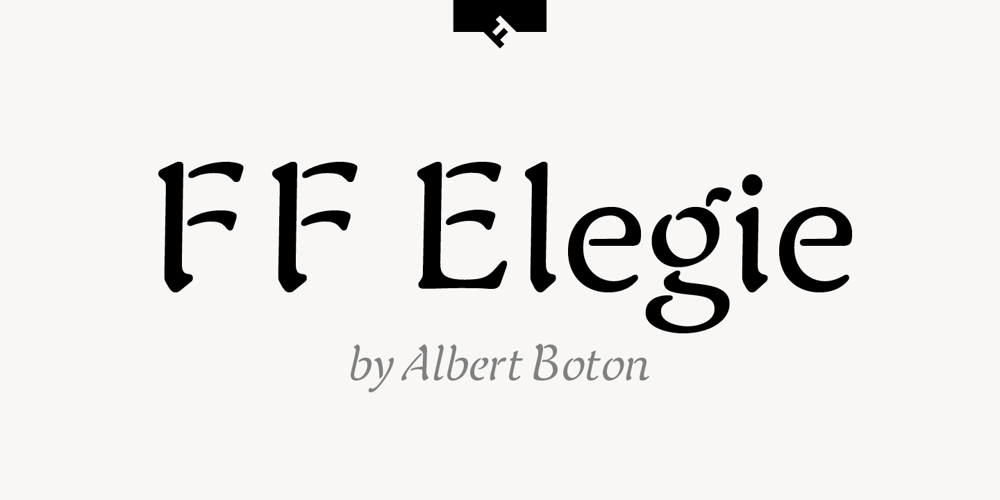
FF Elegie Font Family was designed by Albert Boton and published by FontFont. FF Elegie contains 2 styles and family package options. French type designer Albert Boton created this script FontFont in 2002. The family contains 2 weights: Regular and Italic and is ideally suited for advertising and packaging, festive occasions, film and tv as well as poster and billboards. FF Elegie provides advanced typographical support with features such as swashes, ligatures, alternate characters, and case-sensitive forms. It comes with a complete range of figure set options – oldstyle and lining figures, each in tabular and proportional widths.